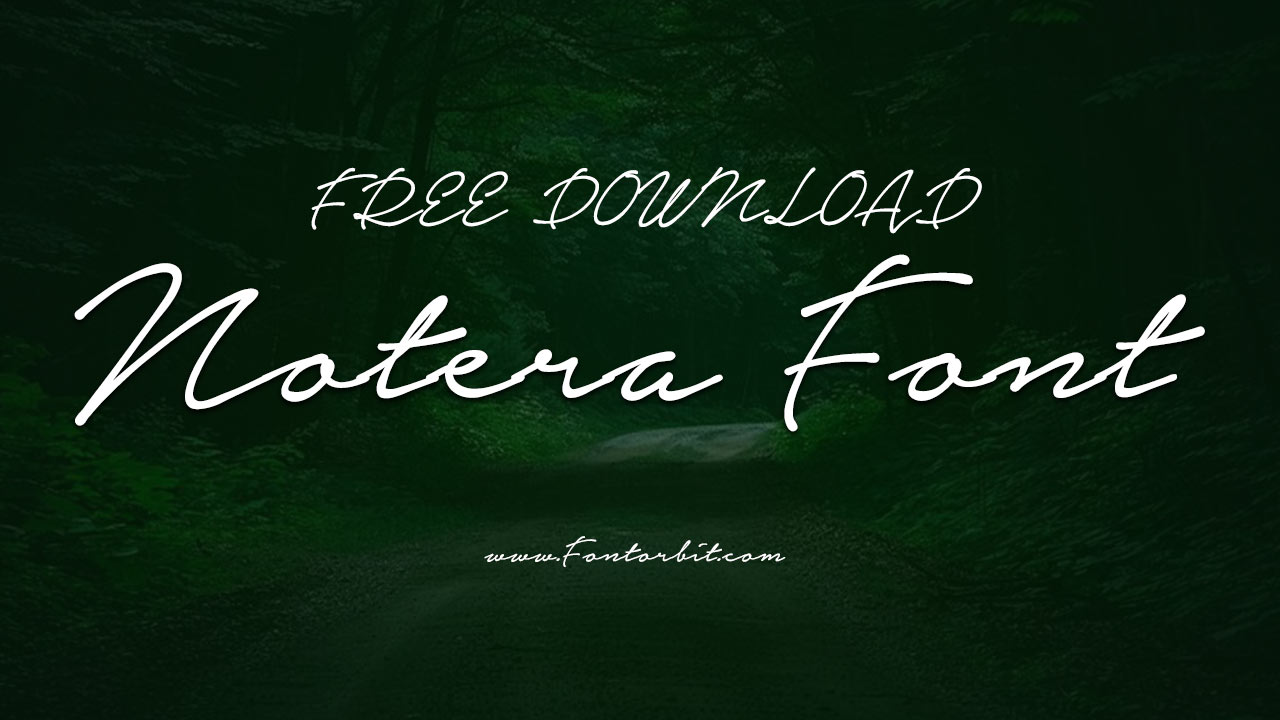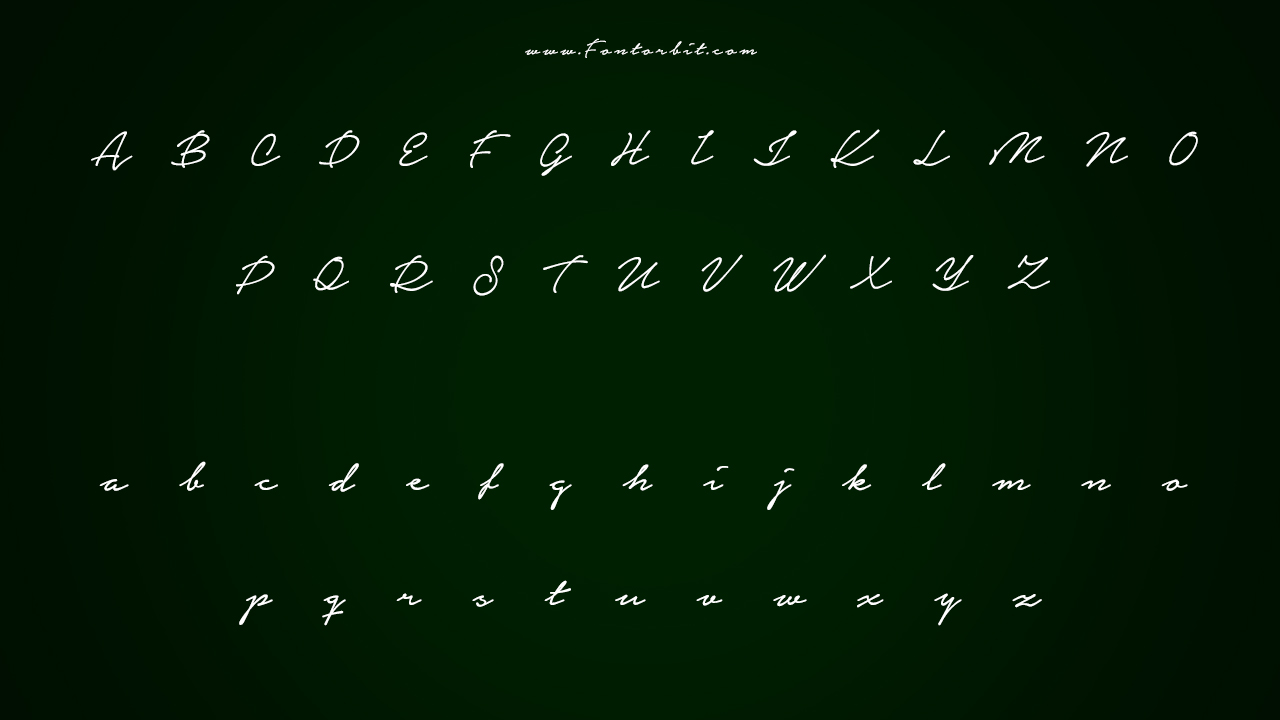
Notera Font is a beautiful, hand-drawn script typeface designed by Mans Greback. Released as part of Greback’s font collection, it embodies a casual yet artistic handwritten style.
Category Of The Notera Font
Font family Notera belongs to the script and handwriting categories, with a subfamily of Regular. It contains uppercase and lowercase letters, punctuation marks, numerals, and special characters, making it suitable for multiple language support.
Notera’s natural aesthetic is perfect for projects that require a more relaxed or informal tone while still maintaining a sense of elegance.
a. Notera Regular
Notera Font is ideal for adding a personal, handwritten touch to a wide range of creative projects. Its flowing lines and casual aesthetic make it a great choice for projects where a handwritten or artistic look is desired. From wedding invitations to social media graphics, Notera’s versatility allows it to shine in various formats.
- logos
- movie title
- Business cards
- advertising
- websites,
- videos for companies
- T-shirts
- stickers
Notera Font offers a unique combination of casual elegance and hand-drawn authenticity. It’s perfect for a variety of personal projects, from wedding invitations to social media posts, where a laid-back yet stylish handwritten script is needed. Pair Notera Font with clean sans-serifs or minimalist designs to enhance its informal charm.
1.What Are The Popular Uses Of Notera Font?
Notera Font is often used for social media graphics, wedding invitations, branding, product packaging, and wall art due to its relaxed, handwritten look.
4.What Is The Font Size Range For Notera Font?
Notera Font works well in various sizes, typically from 14pt for body text to 100pt or more for headings, logos, or large-scale designs.